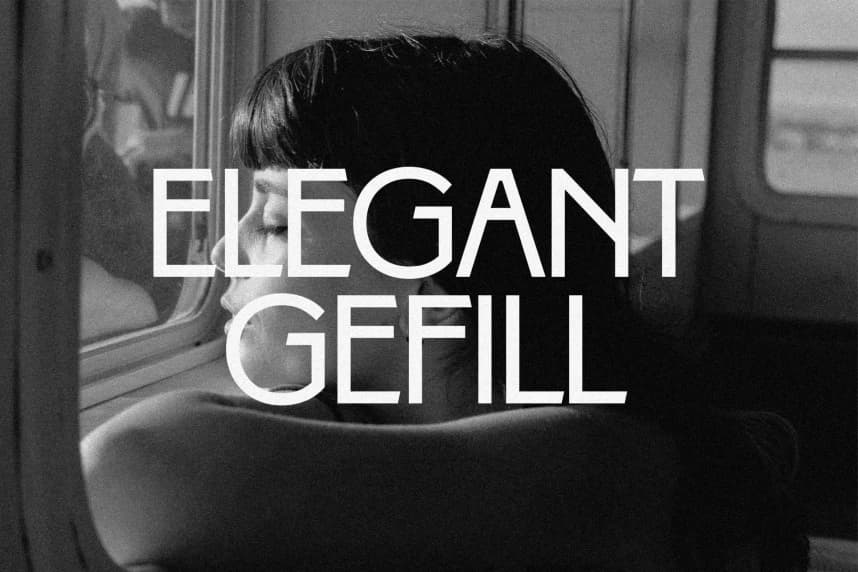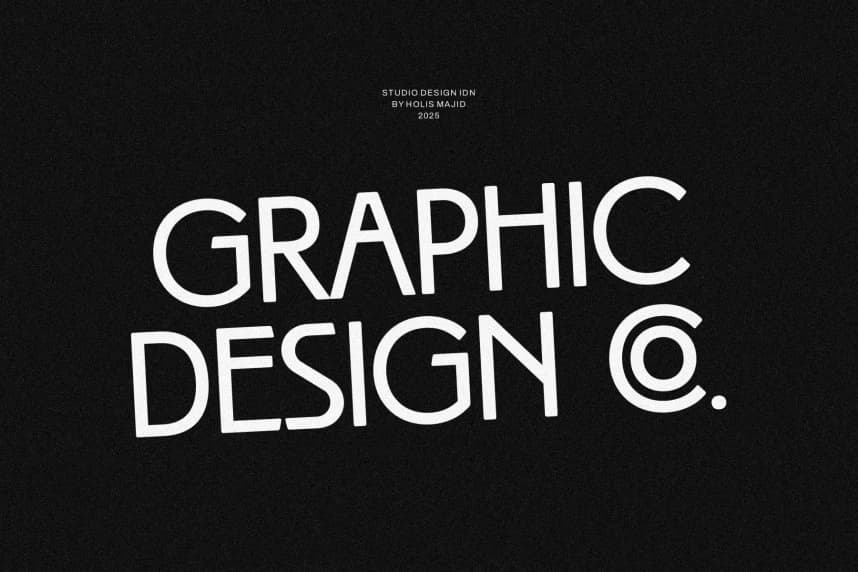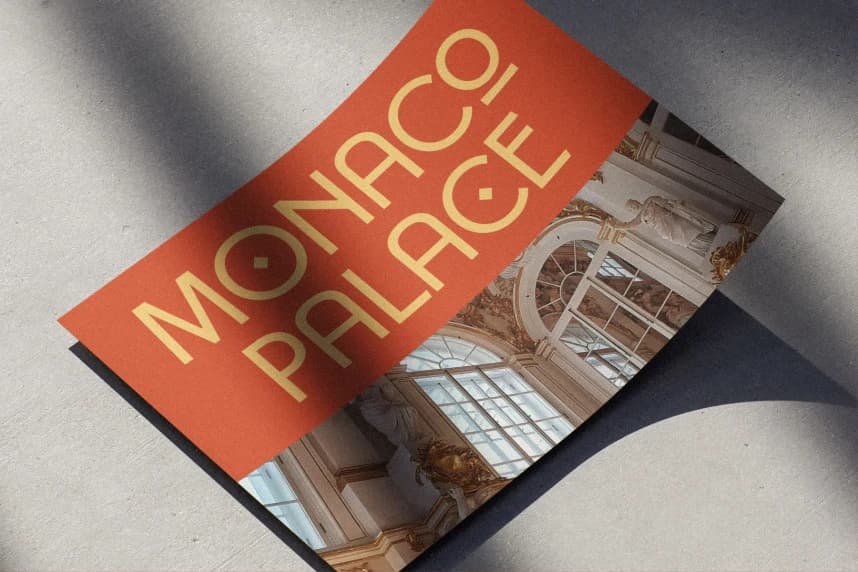
Gleac HF Font
Gleac HF Font - Art Deco Font, a stunning sans serif display typeface that captures the elegance and sophistication of the Art Deco era. With its clean lines and vintage charm, Gleac is perfect for elevating your branding projects, whether it’s a logo, poster, or striking headline.